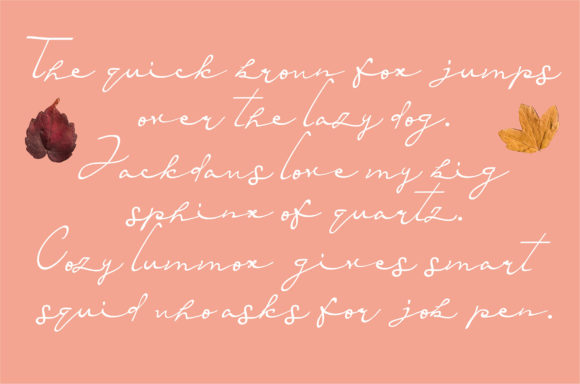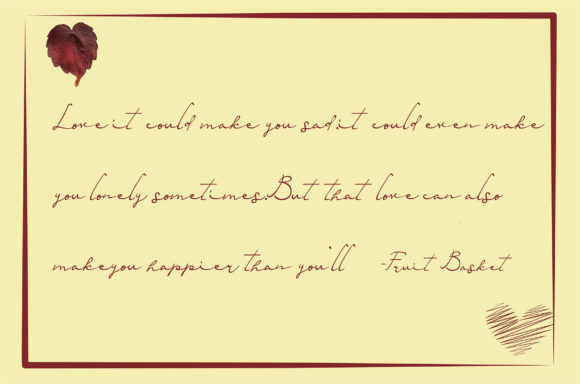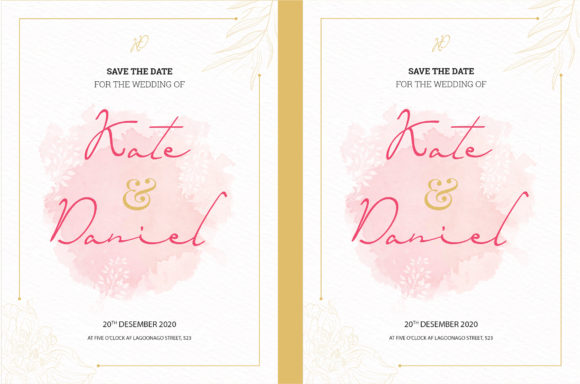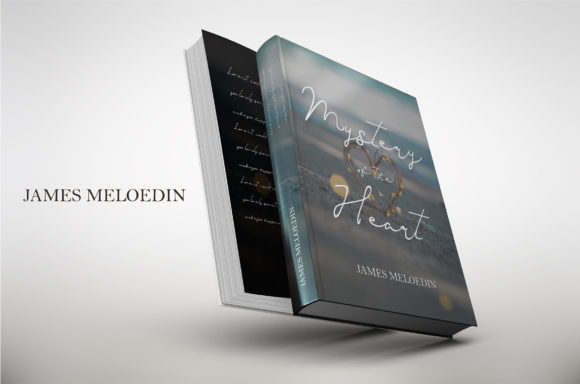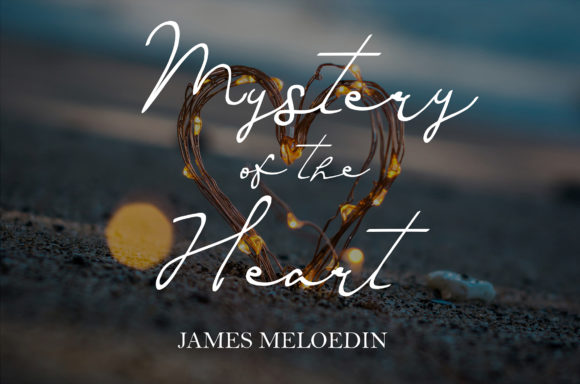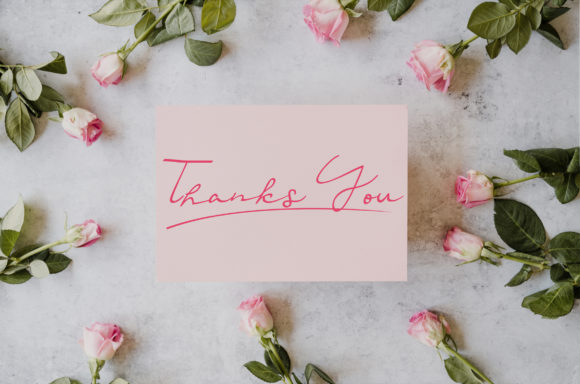
Red Romance Font
About Red Romance Font
Red Romance is a dreamy and incredibly delicate handwritten font. Ideal for writing love letters or personalized texts in general, this font iwll become your top choice in no time.